Surprise Me: Blum’s Fruit Cake
Lettering is so often composed of perfect, soaring curves. Never a hair out of place. So, I was delighted to run into this tin that once held fruit cake from Blum’s, a well-loved San Francisco bakery closed since the 70s.
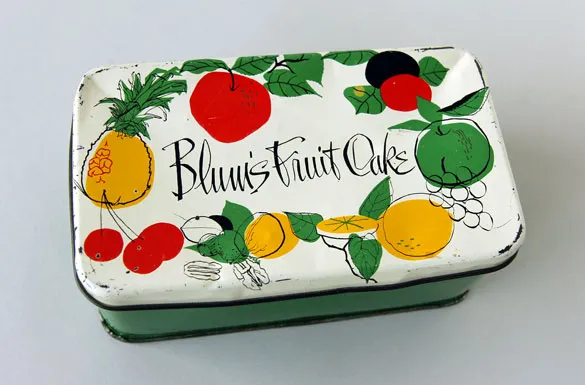
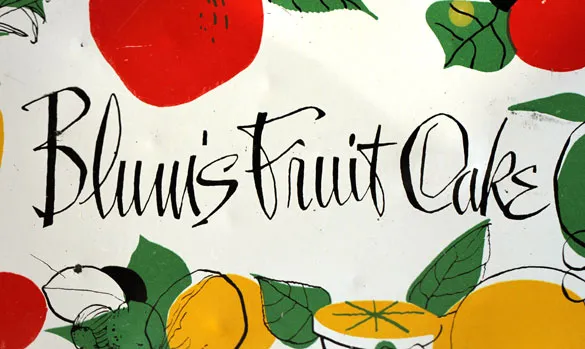
The overall tone of the lettering is quick, fluid and slightly textured with a bit of angularity thrown in particularly at the baseline. When you get to the letters at the end or beginning of a word, say the B and s in Blum’s, things take a decidedly idiosyncratic turn. The angularity and texture is magnified and (dare I say it) the shapes feel slightly awkward. But, it’s those gestures that add such charm and warmth to the piece, a reminder that surprise and consistency are often perfect bedfellows.